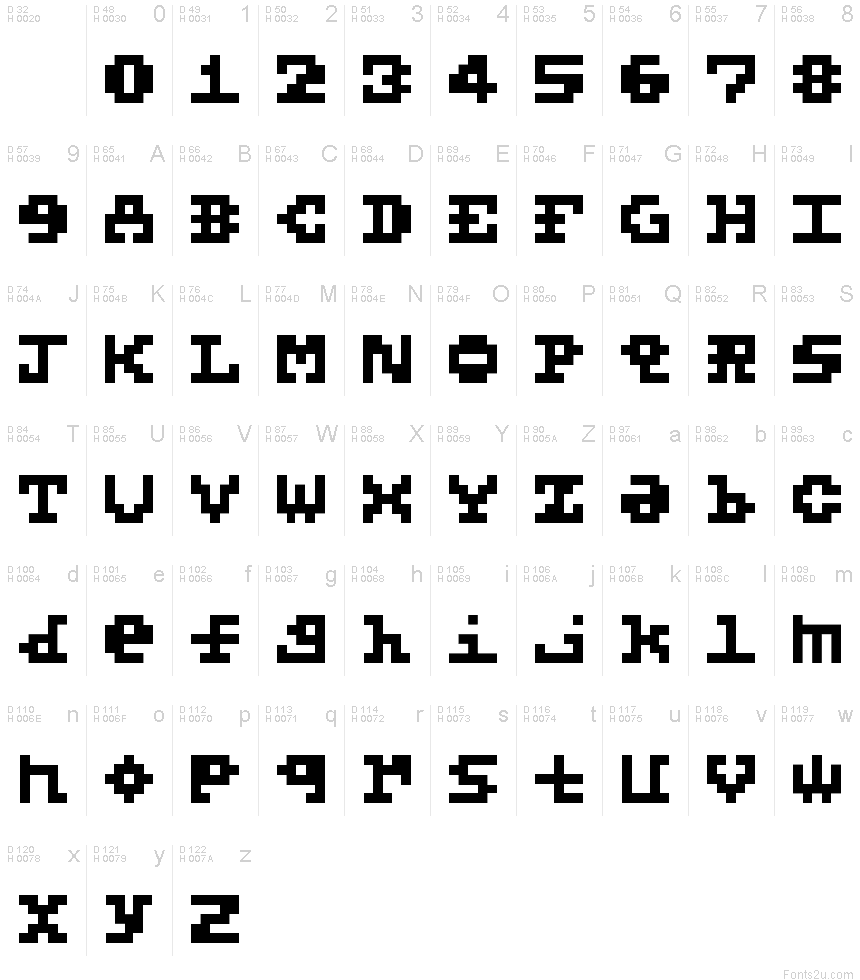
5X5 Basic
5X5 Basic font by P2+K2 is a free bitmap pixel font that squeezes bold character into a tiny 5x5 grid. Every letter is carved from chunky square blocks, creating a tight, low-res texture that reads instantly, even at micro sizes. In the 5x5 family, this version feels especially crisp and utilitarian-like classic console graphics snapped into place on a glowing screen.
Using 5X5 Basic, you can build retro game HUDs, tiny UI labels, minimalist icons with text, techy posters, glitch art titles, and old-school terminal mockups. This free font shines where space is scarce but impact matters, giving you loud, blocky lettering without visual clutter. For a clean hierarchy, pair 5X5 Basic with a smooth geometric sans for body text and keep this pixel typeface for headers and overlays at consistent grid-aligned sizes.